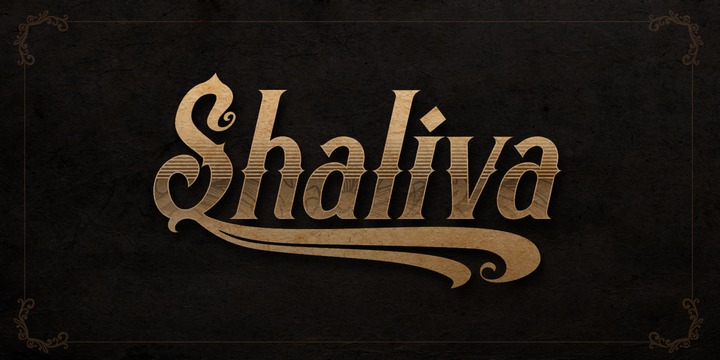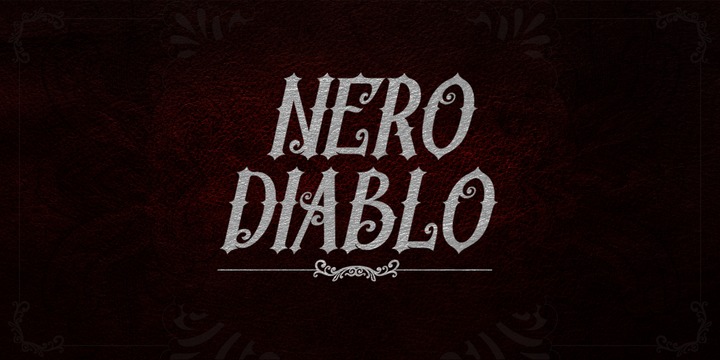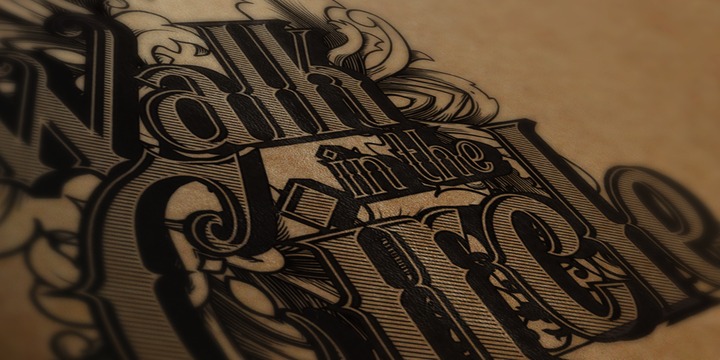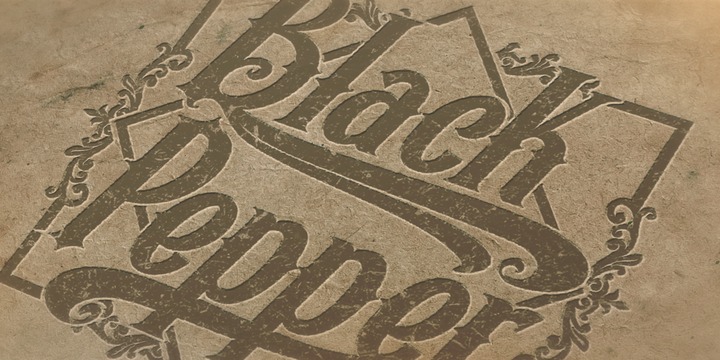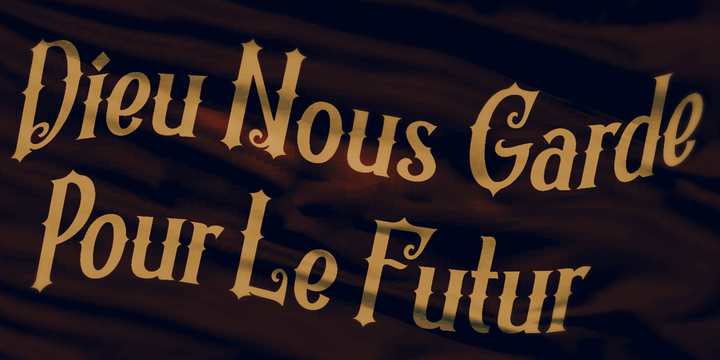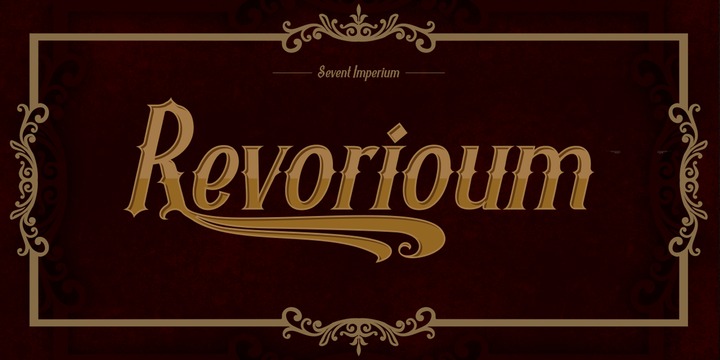
Revorioum font
Revorioum – Antique Medieval Headline Font
Revorioum has a classical bold contemporary typeface with a dynamic and flexibility touch, it is equipped with lots of opentype features making it easy to play with.